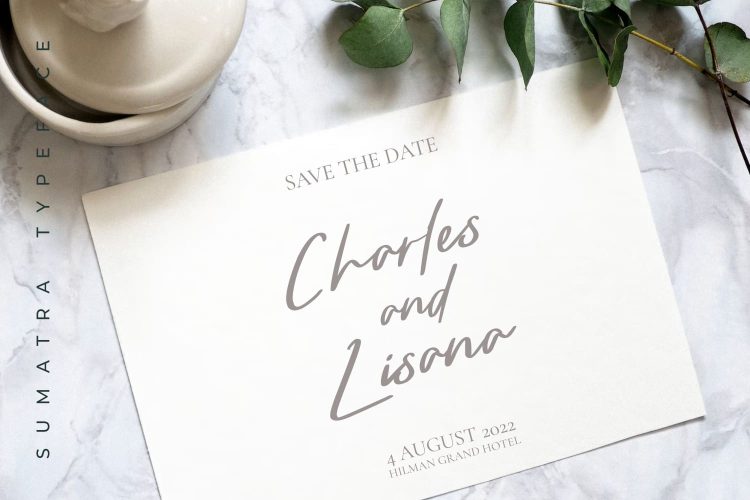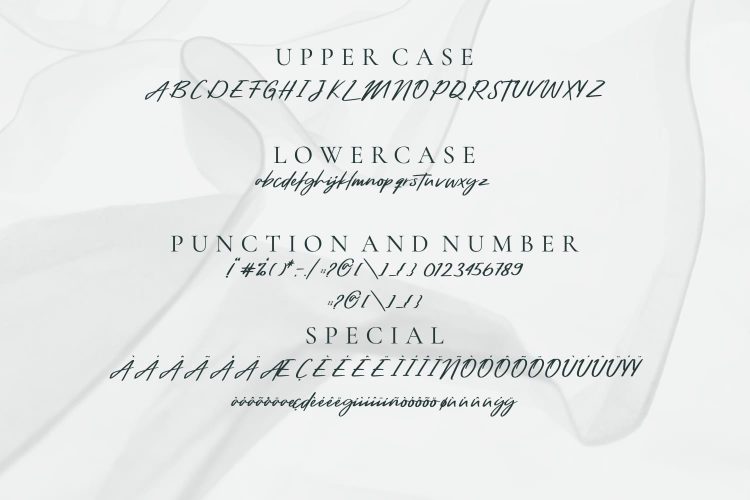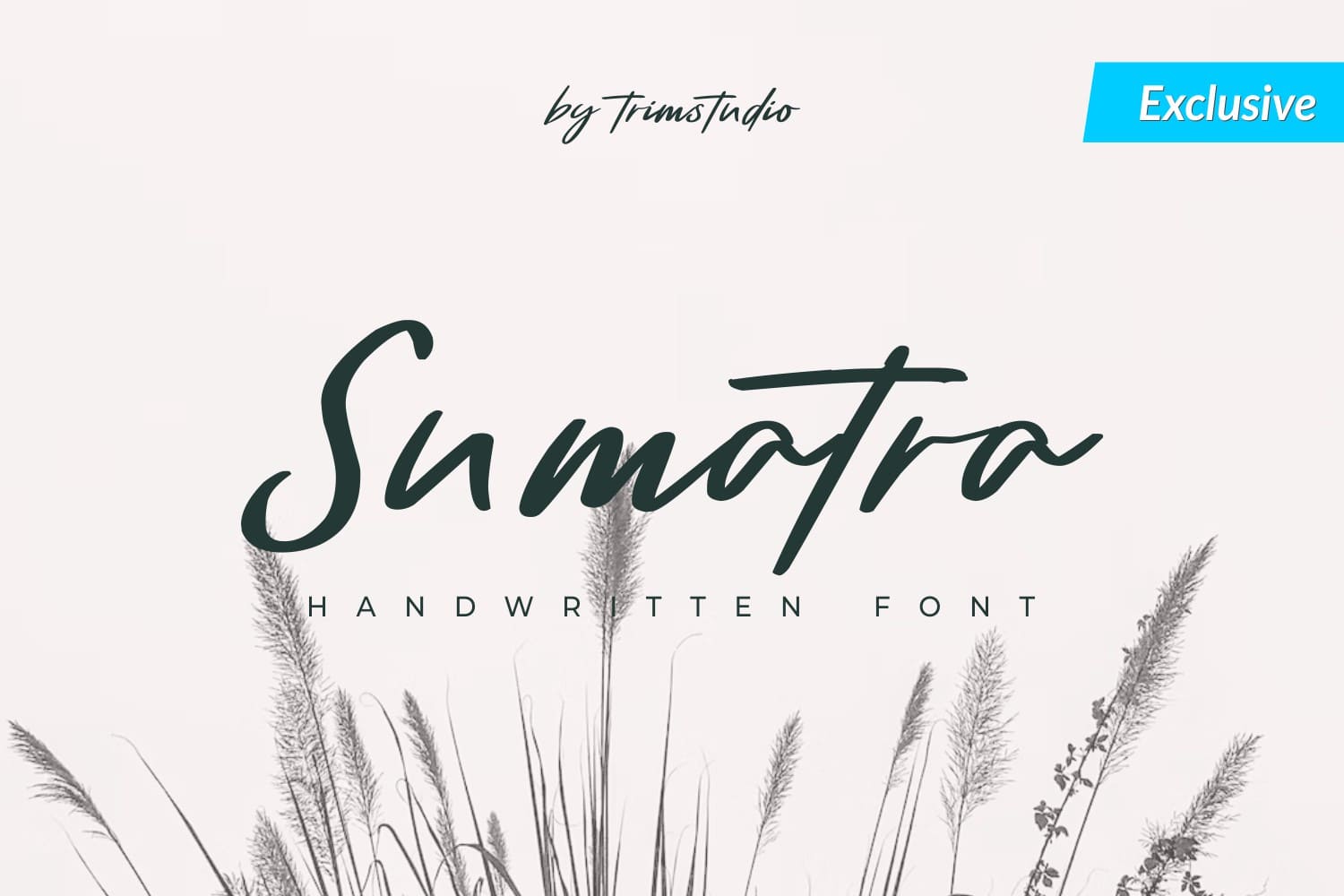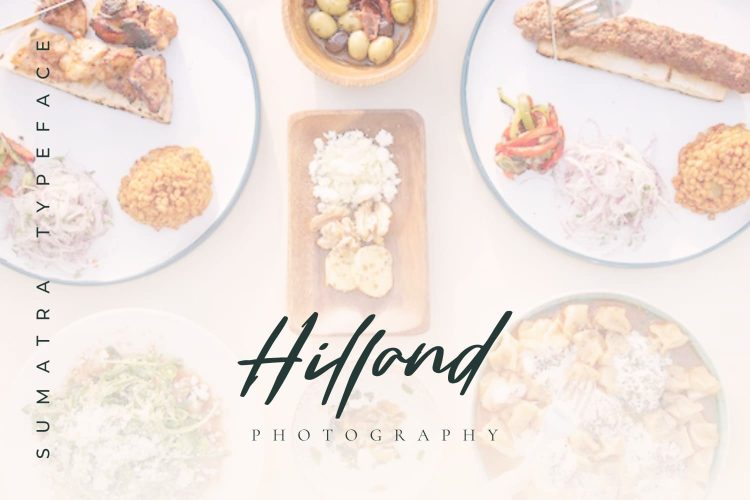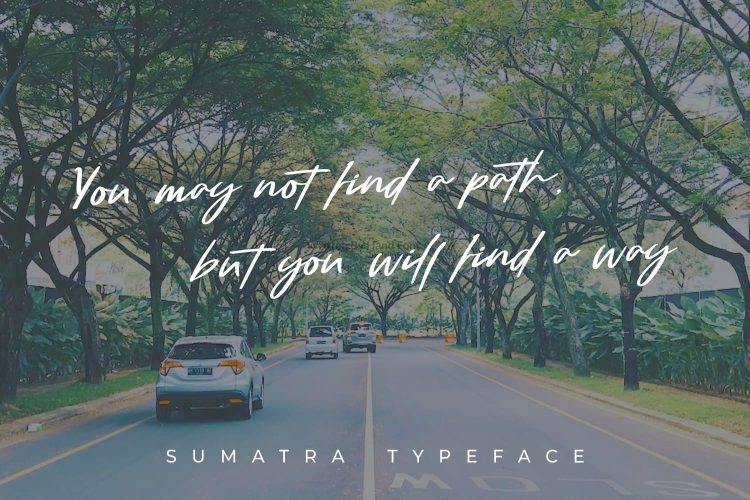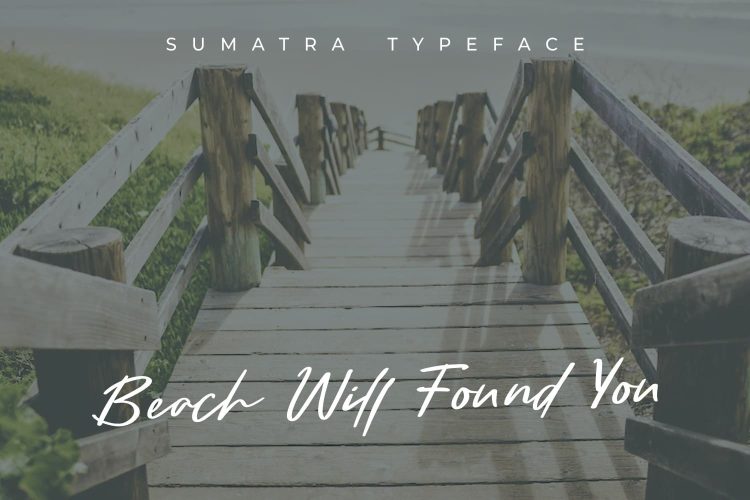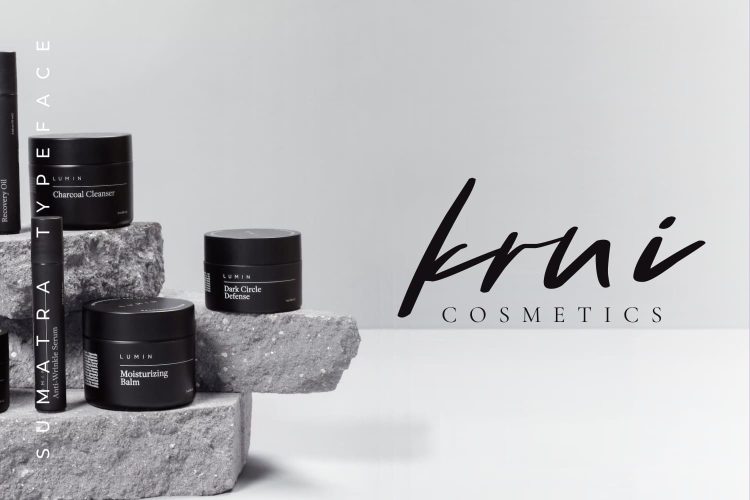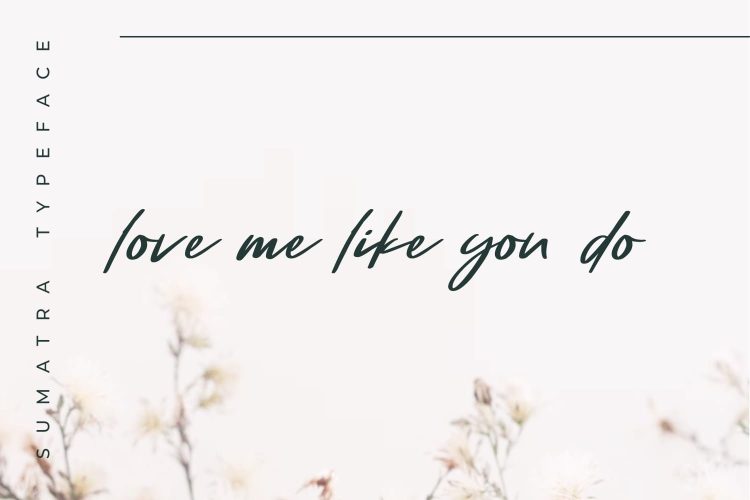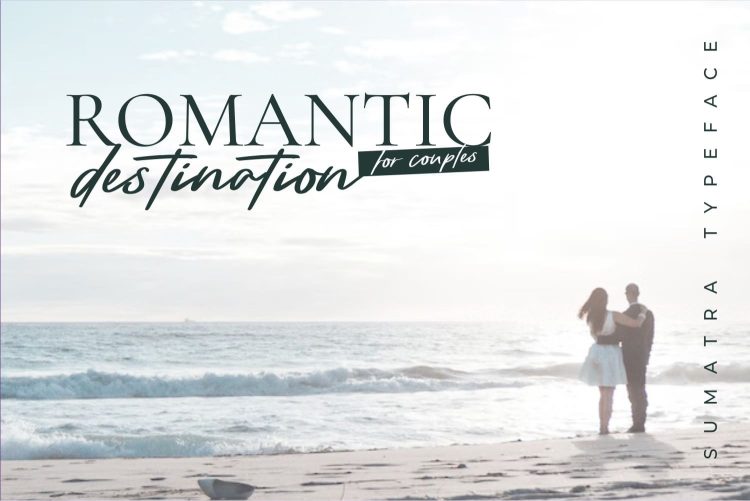
Sumatra is a beautiful and light handwritten font with a unique feel and a stunning impact. It will add a luxury spark to any design project that you wish to create!